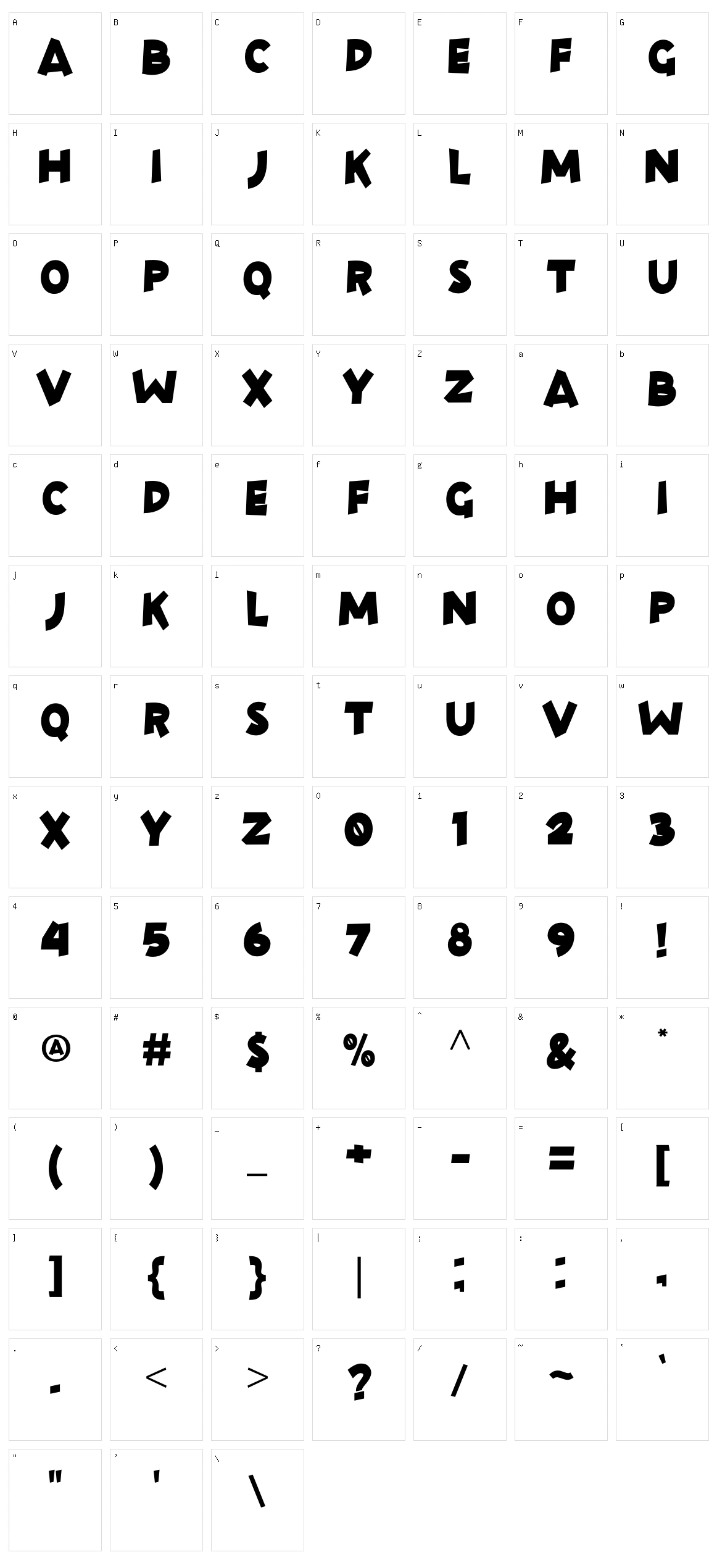
The free font Roley Poley is carefully designed by Krakenbox Std, showcasing a thoughtful balance of creativity and usability and falls under the Cartoon font style. When you download the ZIP file, it contains only 9 KB of font files, making it lightweight and quick to download. Please review the license details below to understand permitted usage and distribution rights. If license information is not available, we recommend using this font for personal projects only or contacting the author directly for commercial usage permissions.